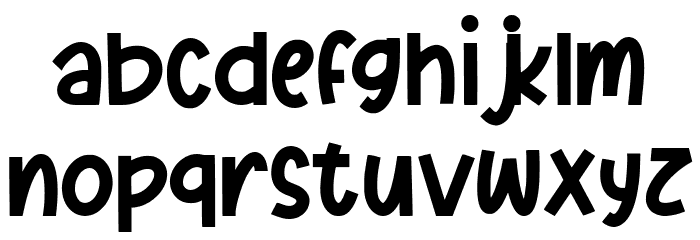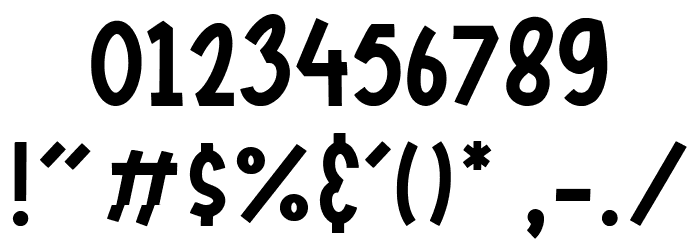
Pumkinpie Font
This playful and whimsical font features a bold and rounded style, with each character exhibiting a slight bounce and irregularity that adds to its charm. The uppercase letters are tall and slightly narrow, while the lowercase letters maintain a consistent flow with a friendly appearance. The numbers are equally bold, ensuring readability. Special characters are designed to match the overall playful aesthetic, making this font ideal for projects that require a fun and informal touch. The font's unique style is perfect for capturing attention and conveying a sense of joy and creativity.
A playful, bold, and rounded font with a whimsical style.
- Proposed Projects: Ideal for children's books, playful branding, party invitations, and creative posters.
- Overall Style: Playful